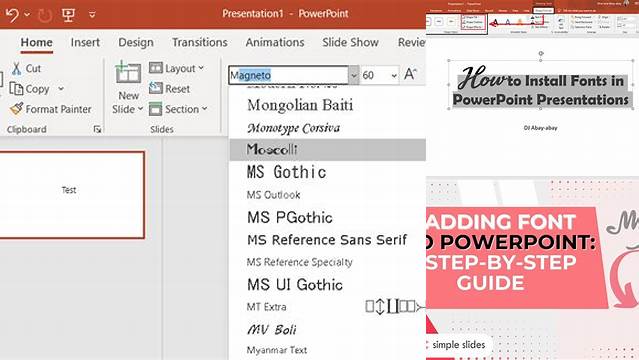
1. Understanding Font Limitations in PowerPoint Online
So, first things first, let's get real about how PowerPoint Online handles fonts. Unlike the desktop version, you can't just install fonts directly onto the online platform. This is because PowerPoint Online relies on a web server to display your presentations, and installing fonts would be a bit of a logistical nightmare. However, Microsoft has included a pretty decent library of fonts that you can use, including the popular ones like Arial, Calibri, and Times New Roman. These fonts are available to all users, which makes it easy to create consistent presentations across different devices. But hey, sometimes you want something a little more unique, right? Don't worry, we'll look into methods to get around this limitation. It's like being told you can't have a specific flavor of ice cream, but then discovering a secret menu! Understanding these limitations is the first step. PowerPoint Online offers a variety of default fonts that are readily accessible for your use. These include a range of serif and sans-serif fonts, designed to suit different presentation styles. These default options ensure compatibility and consistency across various devices and operating systems. The limitations are designed to maintain the functionality and accessibility of PowerPoint Online, ensuring presentations are viewable and editable by anyone, anywhere.
1.1. Default Font Options in PowerPoint Online
PowerPoint Online boasts a solid selection of default fonts, a lifesaver considering its limitations on direct font installation. These pre-loaded fonts are your go-to for creating visually appealing presentations without any extra fuss. The range includes widely-used fonts like Arial, Calibri, and Times New Roman, making sure your text looks clear and professional. You’ll also find other common options, like Verdana and Georgia, which are excellent choices for readability, especially in presentations. Think of these as your reliable friends. They're always there and always ready to help! The default fonts are designed for versatility. They're suitable for almost any presentation, from formal business reports to casual educational slideshows. Using these fonts ensures compatibility across all devices and platforms. You won't have to worry about your audience seeing a default font substitution. These options also include different weights and styles – like bold, italic, and condensed – allowing you to customize your text to match your presentation's theme and emphasis. It is always a good idea to explore these fonts before you start to get an idea of what you can do.
2. Using Existing Fonts within PowerPoint Online
Alright, even if you can't upload new fonts, you've still got options to make your presentations pop. PowerPoint Online comes loaded with a bunch of pre-installed fonts that are ready to use right out of the box. Think of it as a pre-stocked toolbox. The real trick is knowing what’s available and how to use them creatively! Using the existing fonts in PowerPoint Online is super easy. When you select a text box, you’ll see a font dropdown menu. Click on it, and you'll be presented with a list of available fonts. Scroll through the list and find a font that fits your presentation’s style and theme. Some fonts have different variations, like bold, italic, and even different weights. These variations can add emphasis and visual interest to your text. It's like having a wardrobe full of clothes; you can mix and match to create different outfits! Experiment with various fonts and their variations to discover what works best. Don’t be afraid to try different combinations to see what looks the most visually appealing. The key is to keep your audience in mind. What fonts are easy to read? Which ones convey the message you want? It's all about finding the right balance to engage and inform your audience.
2.1. Accessing the Font Menu and Font Options
So, let’s get into the nitty-gritty of accessing the font menu in PowerPoint Online, so you can select those awesome fonts. It’s straightforward. Open your presentation, select the text you want to style, and look at the formatting toolbar. You'll spot a dropdown menu near the top of the screen that displays the current font. That's your gateway to font heaven! Clicking this menu reveals a list of all the available fonts in PowerPoint Online. As you scroll through the list, you'll notice previews of each font, allowing you to see what they look like before you apply them. Think of it as a fashion show for your text! Once you've found a font you like, simply click on it to apply it to your selected text. You'll also find options to change the font size, style (bold, italic, underline), and color. The goal is to find the right combination that suits your needs. Play around with different combinations, and don’t be shy about experimenting. Remember, practice makes perfect. Get familiar with these controls, and you'll become a PowerPoint Online font pro in no time!
2.2. Selecting Fonts That Match Your Theme
Picking the right font is like choosing the perfect outfit – it has to match the occasion! In PowerPoint Online, selecting fonts that match your theme is crucial to create a cohesive and visually appealing presentation. Think of it like choosing the right wine for dinner: it enhances the entire experience. First, consider your audience. Is it a formal presentation for a business meeting or a fun slideshow for a birthday party? This will guide you in choosing the right font. For professional settings, stick to clean, easy-to-read fonts like Arial, Calibri, or Helvetica. They’re safe bets that convey professionalism. For a more casual or creative setting, you can be a bit bolder. Fonts like Comic Sans (use with caution!) or some of the more decorative fonts might be suitable, but always make sure they're still legible. Always check that your selected fonts are easy to read. Avoid overly stylized fonts for large blocks of text. Use them sparingly, like in headings or titles, to add a touch of personality. Use a font pairing guide and consider how different fonts complement each other. Don't mix too many different fonts. Stick to a maximum of three to maintain consistency and visual harmony. A great-looking presentation is one that communicates clearly and resonates with its audience. Choosing the right fonts can make your presentation unforgettable!
2.3. Font Pairing Tips and Best Practices
Alright, let’s get into the art of font pairing. Knowing how to combine fonts is like being a chef. It’s about finding the right balance of flavors to create a delicious dish! Here are some font pairing tips and best practices to help you create beautiful and engaging presentations. Think of it as creating a recipe for success. First, understand the basic font types: serif fonts (like Times New Roman) have small strokes at the end of each letter, while sans-serif fonts (like Arial) don't. You can pair a serif font for headings with a sans-serif font for body text. This combination provides a clear visual hierarchy and makes your presentation easy to read. Always make sure that the fonts you use are legible. Avoid mixing fonts that are too similar, as it can be confusing and visually noisy. When choosing, make sure there is enough contrast between your font choices. A good rule is to pick one font for your headings and another for your body text, but ensure there's enough contrast between them. You can also mix weights and styles. For example, use a bold sans-serif font for your headings and a regular sans-serif font for the body. The key is to create a harmonious balance. Use online font pairing guides for inspiration. Many websites provide examples of well-matched font combinations. Play around and experiment with different combinations to find what works best for your presentation. Your presentation is your canvas. Take the time to experiment and refine your pairings until you achieve the perfect look.
3. Using Custom Fonts in PowerPoint Online (Workarounds)
Okay, so we know direct font installation is off the table. But what if you really want to use custom fonts? Here are some workarounds to help you incorporate those unique fonts into your PowerPoint Online presentations. It might take a little extra effort, but it's doable. Think of these as secret hacks to bypass the system! The most common and effective method is to use the fonts in your desktop version of PowerPoint. Create your presentation on the desktop app, using your custom fonts, and then upload it to PowerPoint Online. PowerPoint Online will attempt to preserve the formatting, which often includes the custom fonts. This approach works well if you have access to the desktop version. You can also try creating images of your text. If you have a custom font you love, use it to create text in an image editor. Then, insert those images into your PowerPoint Online presentation. It's like using stickers on a digital canvas! Just remember that this method means your text won't be editable in PowerPoint Online. So, if you need to make edits to the text, you'll have to go back to the original image. Another trick is to convert your presentation to a PDF. This will embed the fonts, ensuring they appear as intended. However, this will also limit your editing options, so think carefully before you take this step. The key is to find the right balance between your design needs and the limitations of PowerPoint Online.
3.3. Using PDF Conversion to Preserve Fonts
One of the less-common tricks to preserve your custom fonts in PowerPoint Online is to convert your presentation to a PDF format. Think of it as sealing your fonts in a time capsule! This method ensures that the fonts you've used are displayed exactly as you intended. First, create your presentation in the desktop version of PowerPoint, ensuring that your custom fonts are installed and used. Then, when your presentation is complete, save it as a PDF file. When saving, you might have the option to embed the fonts. This is crucial to guarantee your fonts appear correctly on all devices. Once you've saved your presentation as a PDF, you can upload it to PowerPoint Online. While you can view and present the PDF, you won't be able to edit the text directly. *This process essentially